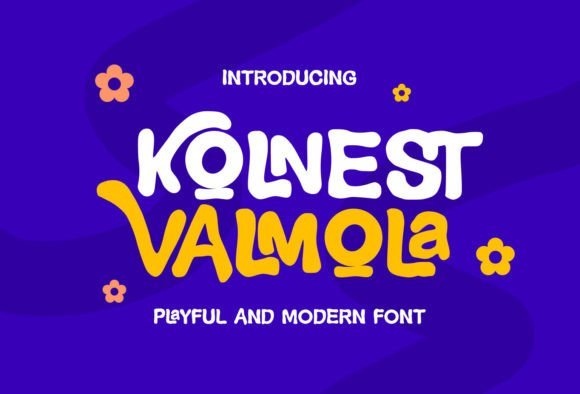
Introduction to Kolnest Valmola Font
Kolnest Valmola is a sweet and friendly handwritten font.
Why Choose Kolnest Valmola Font?
Kolnest Valmola Font offers exceptional quality and versatility, making it a valuable addition to your design toolkit. Whether you’re creating for personal projects or commercial use, Kolnest Valmola Font delivers professional results.